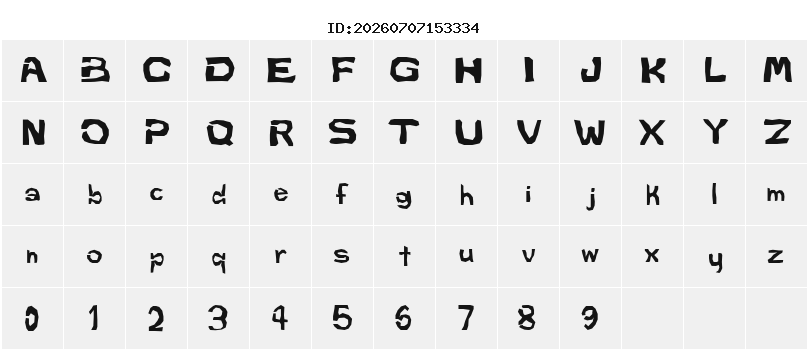
Daze Preview
• Font Name: Daze
• Full Font Name: Daze
About Daze.ttf
Daze.ttf is a modern, elegant sans-serif font designed for ultimate readability and visual harmony. Perfect for branding, headlines, web design, and print materials.